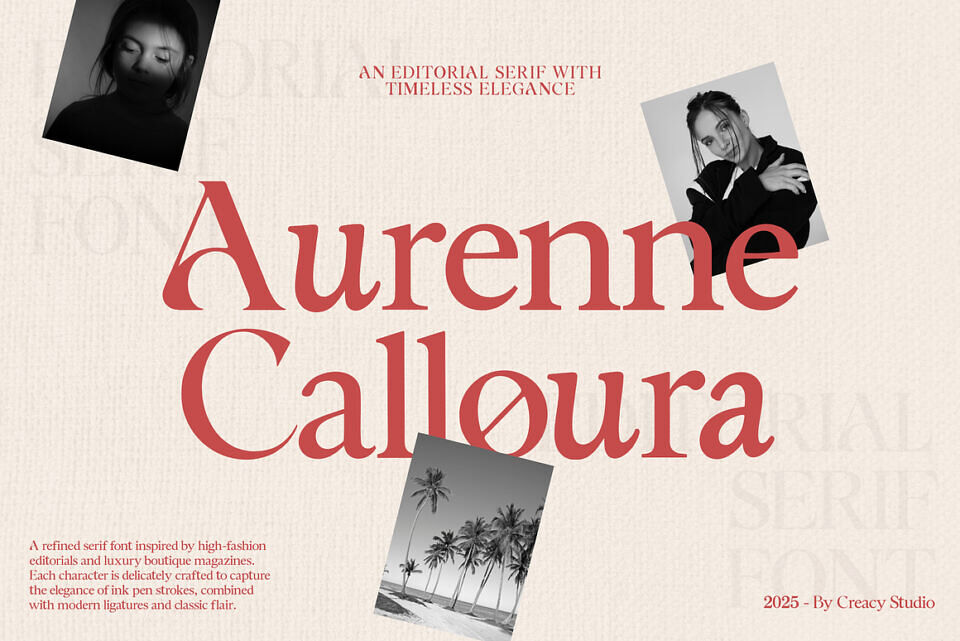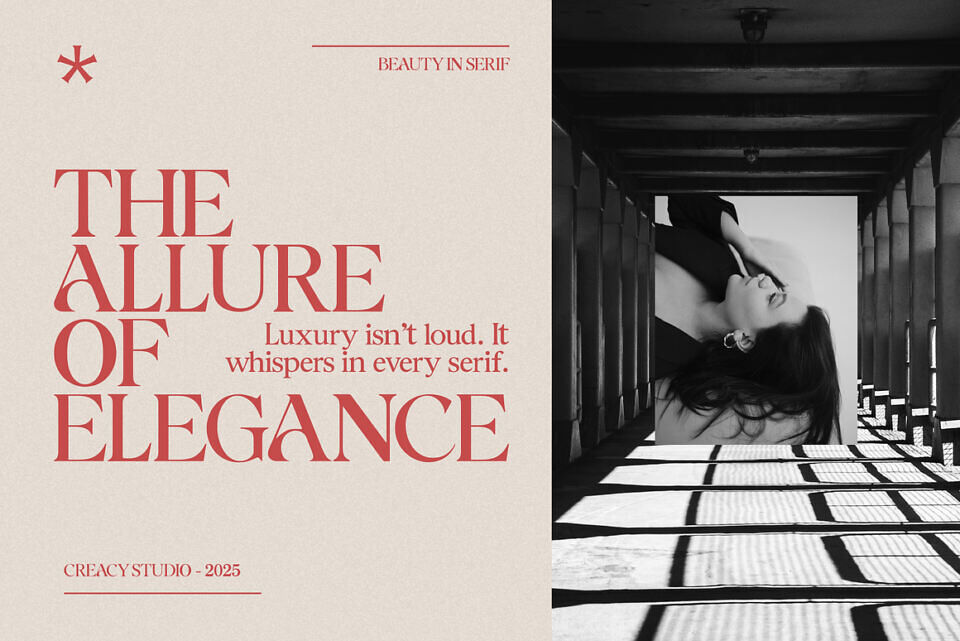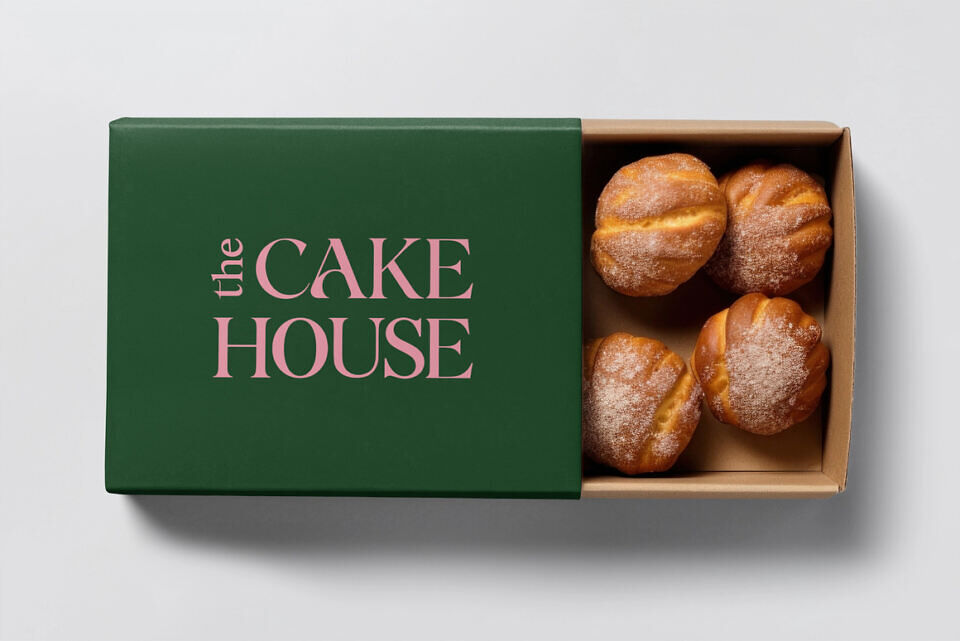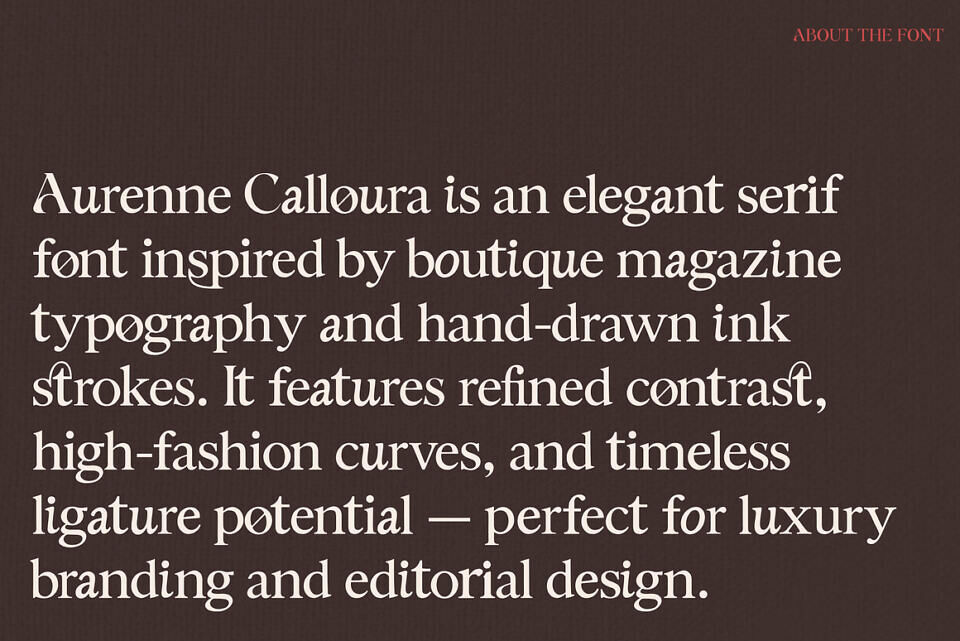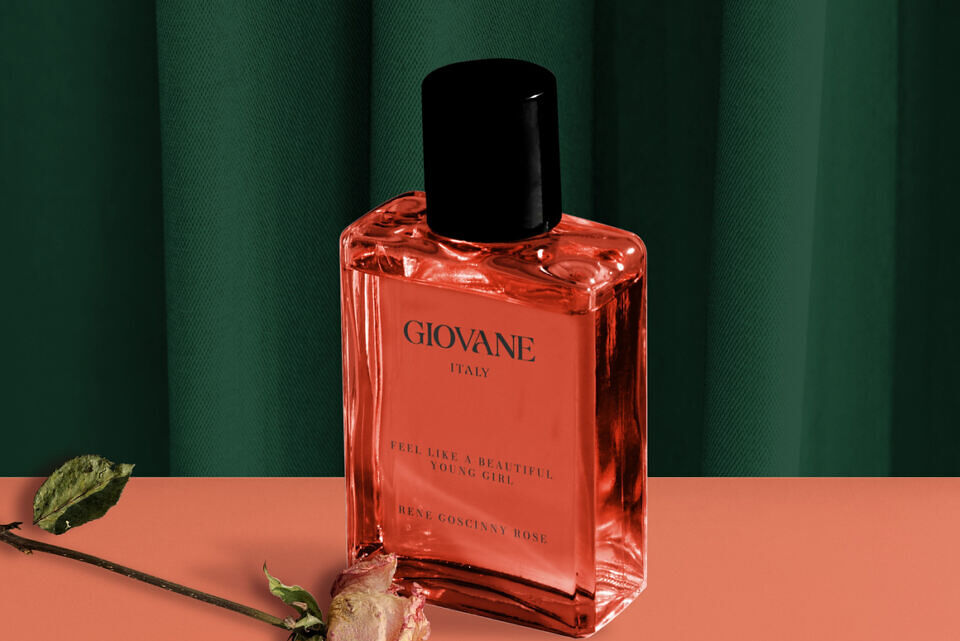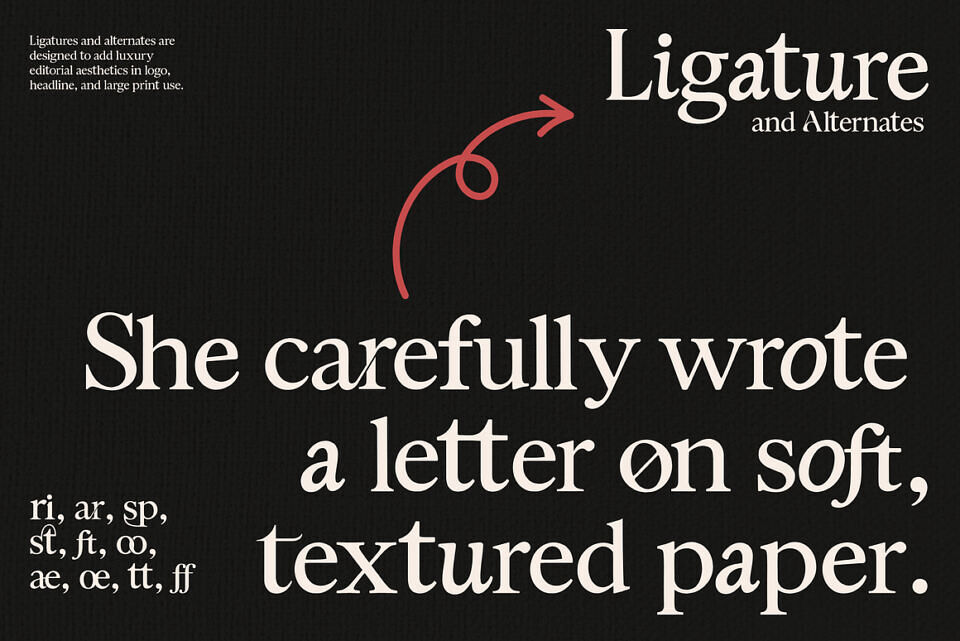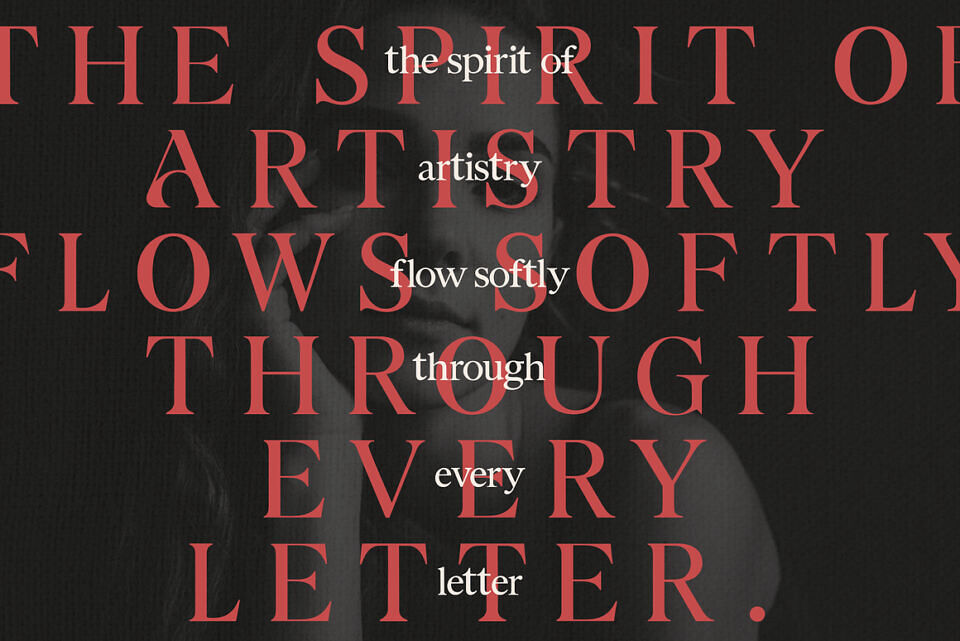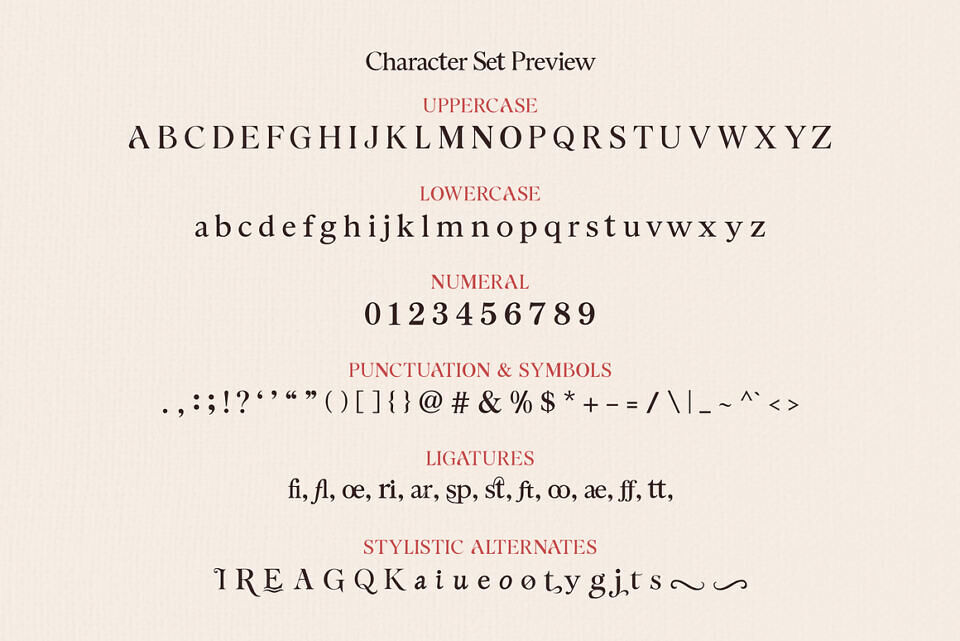
Introducing Aurenne Calloura, a luxurious serif font inspired by high-fashion editorials, boutique magazines, and timeless elegance. Hand-drawn with delicate ink strokes and refined details, this typeface elevates your design with grace and sophistication.
With its high-contrast strokes, gentle curves, and elegant ligatures, Aurenne Calloura brings a modern classic charm to every layout. It is perfect for designers who value aesthetics and want to create a polished, upscale look.
Perfect For:
- Fashion branding & logos
- Editorial magazine layouts
- Wedding invitations & stationery
- Luxury packaging design
- Elegant quotes & social media graphics